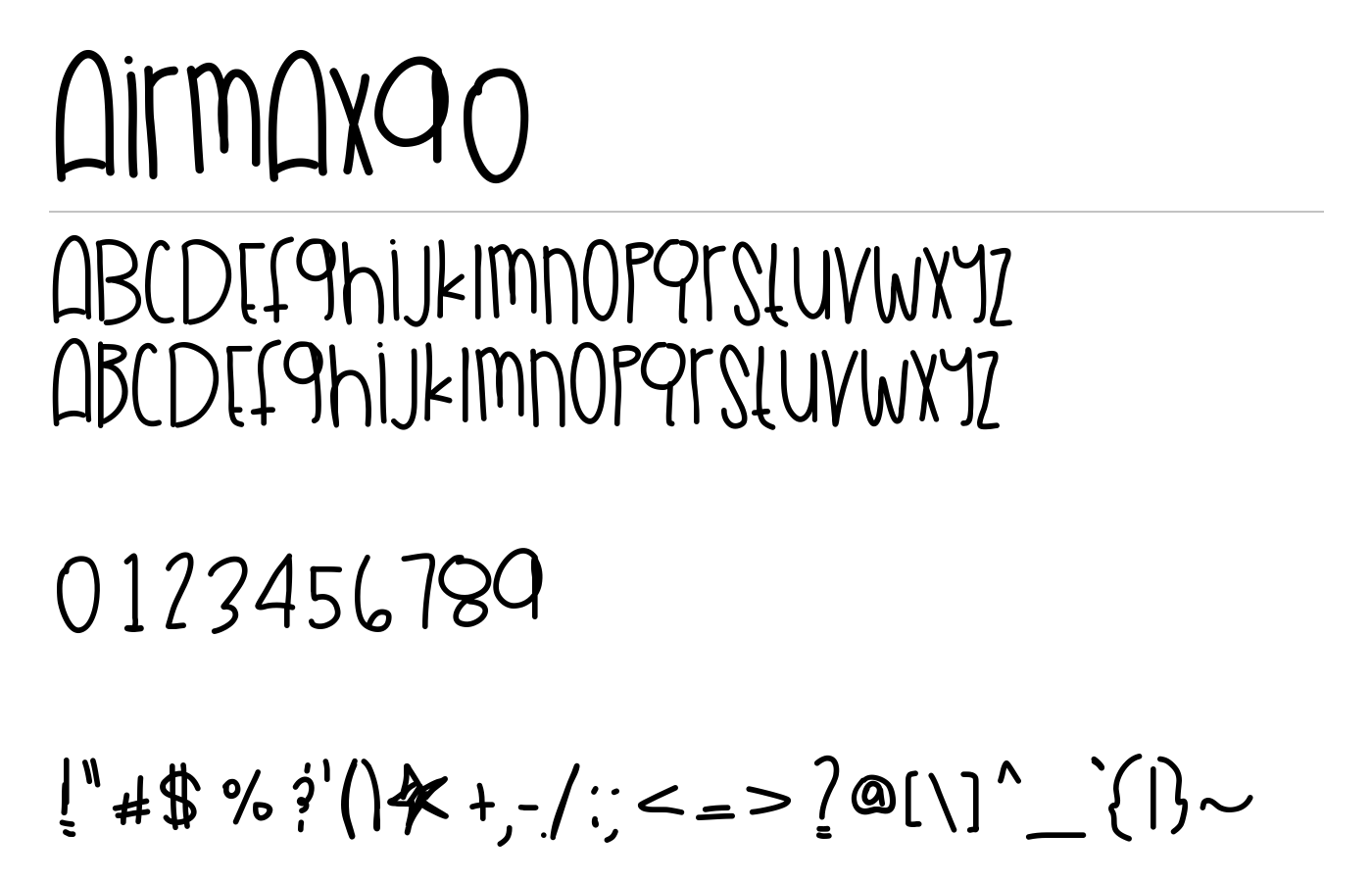
AirMax90 is a playful and casual handwritten sans serif font with tall, narrow characters and a light weight that gives it a friendly, approachable feel. Its informal letterforms and whimsical strokes work well for creative projects, children's designs, and branding that aims to convey fun and individuality. This font is ideal for headlines, logos, and any design needing a quirky, personal touch.
AirMax90 Font
About AirMax90 Font